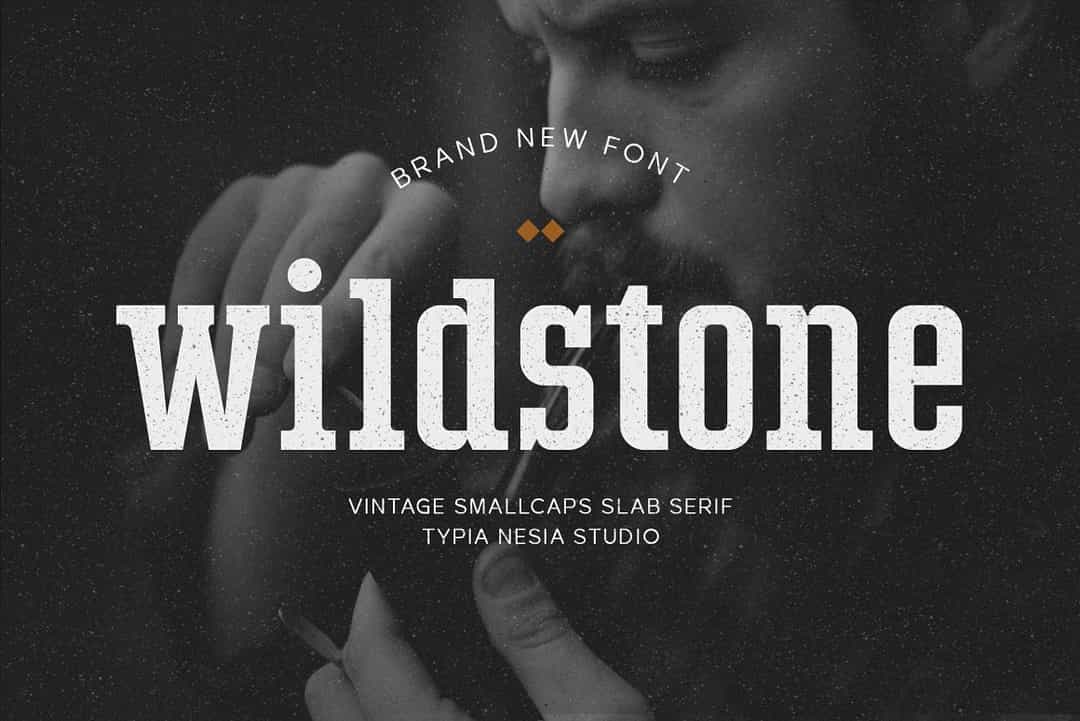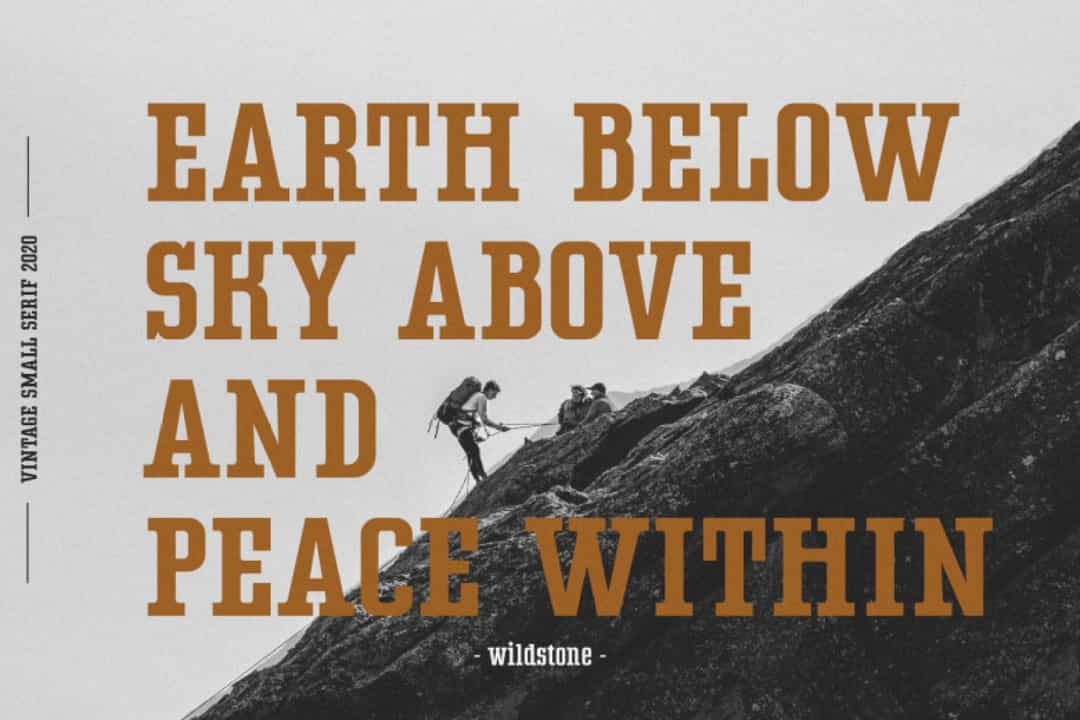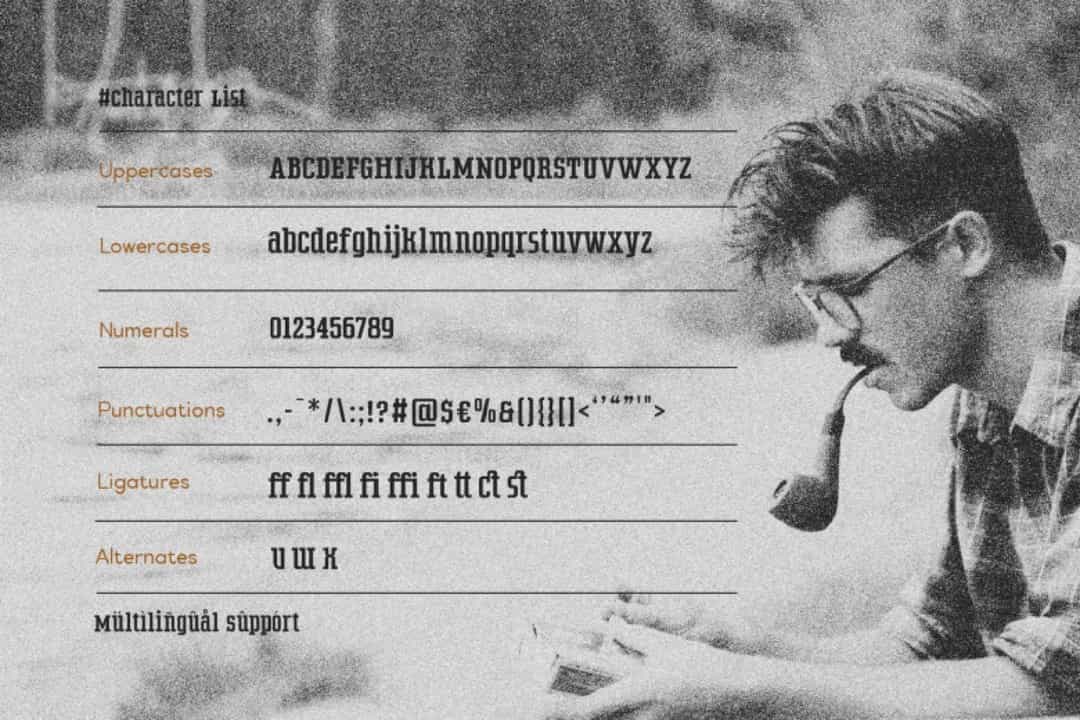
Wildstone Old-Fashioned Mountain Hiking Smallcaps feature the slab serif typeface. Perfect for all design applications including logos branding, modern advertisement designs, old-fashioned garage style logos for mountain hiking adventures/adventures as well as hardcore rock animation or film logos vintage summer poster quotes book/novel cover title Editorial design web site/blog cards etc.